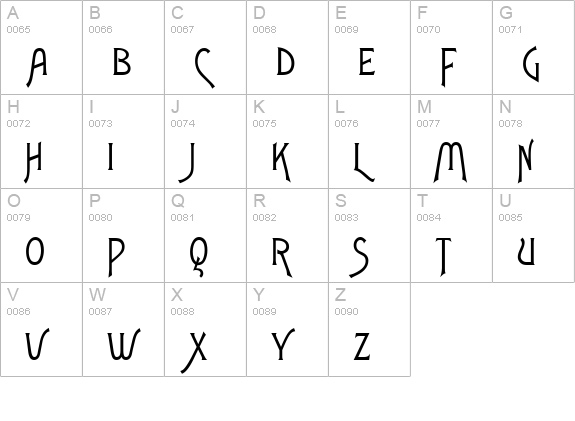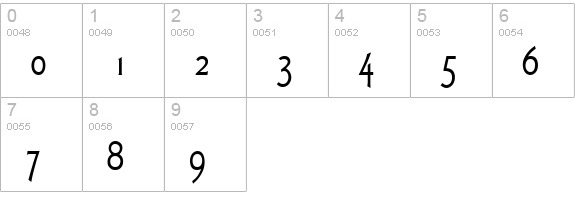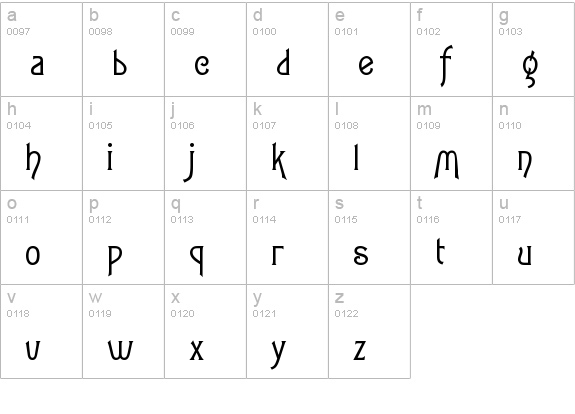
ArtGothicURWTNor Font Details
ArtGothicURWTNor is a stunning display font that exudes a sense of elegance and mystery. With its intricate details and gothic-inspired design, this font is perfect for adding a touch of sophistication to your projects. The sharp, angular letterforms create a dramatic effect that is sure to make a statement. What's even better is that ArtGothicURWTNor is completely free to download at FontsMarket.com. This means you can easily access this unique and eye-catching font for all your design needs without any cost. Whether you're working on a poster, logo, or website, ArtGothicURWTNor is sure to elevate your work and captivate your audience. Don't miss out on this fantastic font that combines classic gothic elements with a modern twist. Download ArtGothicURWTNor today and unleash your creativity like never before.